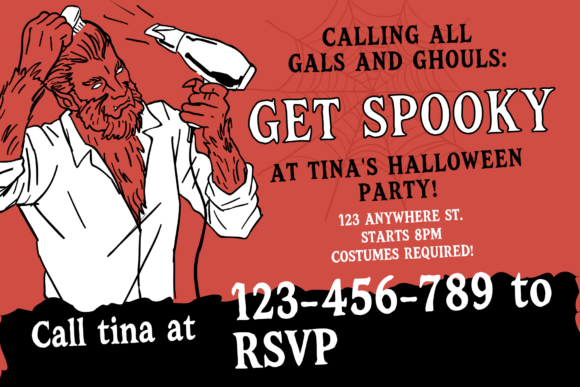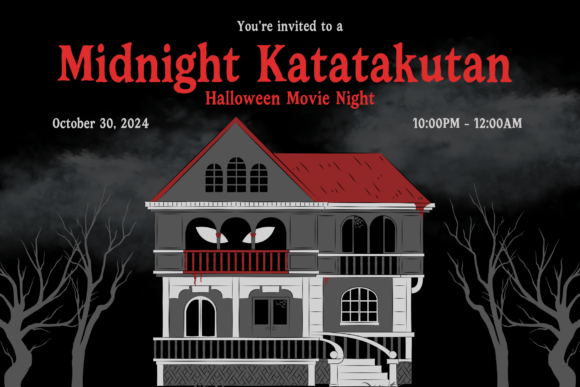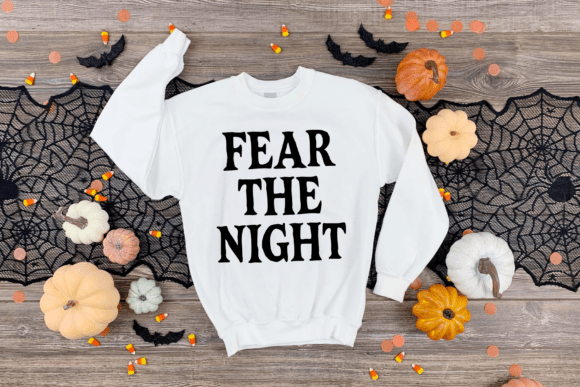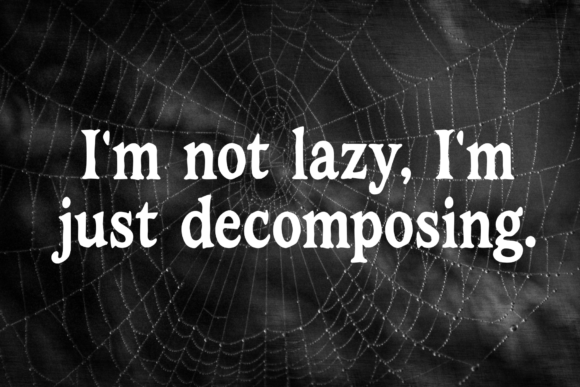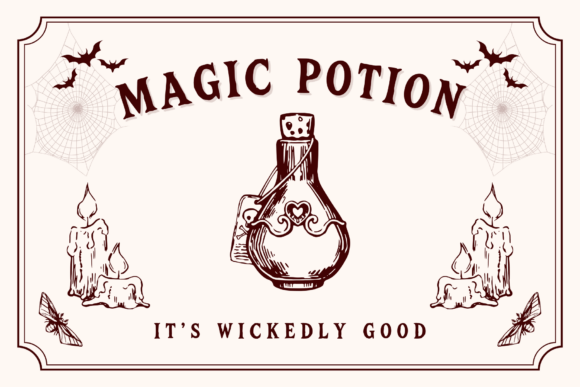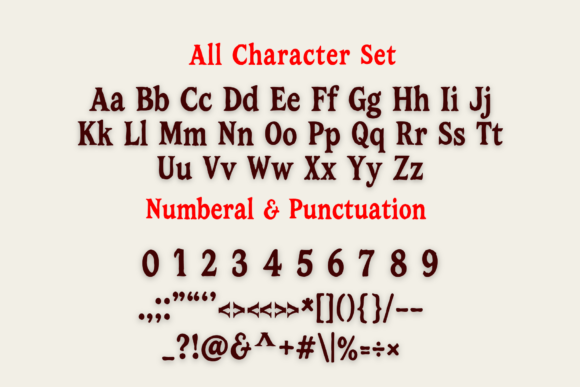
The Creepy Charm of Gothic Horror Font: A Designer’s Delight
I still remember the night I was working on a Halloween-themed project, struggling to find the perfect font to capture the eerie essence of the season. My client wanted something that would make their audience shiver with delight, but I was stuck in a design rut. That’s when I stumbled upon the Gothic Horror font, and it was love at first sight! ✨
With its distressed, hand-drawn aesthetic inspired by vintage horror films and classic gothic tales, this font brought an instant chill to my design. The jagged ink edges and eerie letterforms seemed to leap off the screen, and I knew I had found the perfect fit for my project.
An Honest Review: The Good and the Quirky
- 💀 Distressed, hand-drawn aesthetic with a unique, vintage feel
- 🔍 Eerie letterforms that add a touch of horror to any design
- 🎃 Perfect for horror movie titles, Halloween posters, book covers, and vintage-themed branding
- ✅ Easy to use and pairs well with a variety of design software
Small Quirks and Limitations:
While Gothic Horror Font is an amazing addition to any design, there are a few things to keep in mind: 🤔
- ⚠️ Limited use of OpenType features, which may limit advanced typographic control
- ⚠️ Some users may find the distressed texture too rough or overpowering
A Practical Guide: Using Gothic Horror Font in Your Design Workflow
The Designer Inspiration Behind Gothic Horror Font
The Gothic Horror Font was inspired by the classic horror films and gothic tales of the past. The designer, a self-proclaimed horror fan, wanted to create a font that would capture the eerie essence of these vintage stories. With its distressed, hand-drawn aesthetic and eerie letterforms, this font is sure to bring a touch of horror to any design.
| Font Name | Gothic Horror Font |
| Author | Brown Cupple Fonts |
Q: What type of designs is Gothic Horror Font best suited for?
A: Gothic Horror Font is perfect for horror movie titles, Halloween posters, book covers, and vintage-themed branding.
Q: Is Gothic Horror Font available in different weights or styles?
A: Currently, Gothic Horror Font is available in a single weight, but the designer may release additional weights or styles in the future.